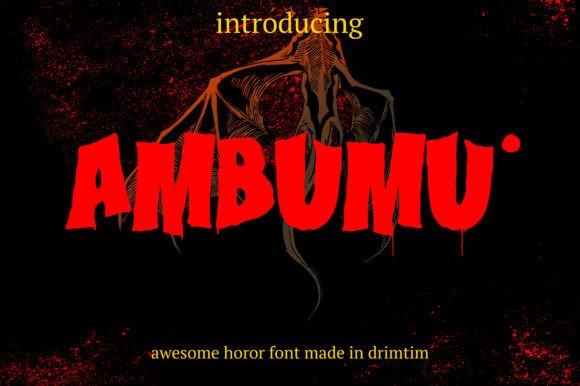
The Spooky-Chic Allure of Ambumu Font: A Designer’s Delight
I still remember the night I was working on a Halloween-themed project for a client, and I was on a mission to find the perfect font to give it that extra spooky kick. I had tried a few options, but nothing seemed quite right – until I stumbled upon Ambumu Font. Its bold, intricate letterforms immediately caught my eye, and I knew I had found the one. In this article, I’ll share my experience with Ambumu Font, its features, and how to make the most of it in your designs.
Ambumu Font: A Spooky-Modern Masterpiece
Ambumu Font is a cool, spooky display font that masterfully merges traditional gothic style with a modern edge. Its bold, intricate letterforms make it perfect for striking posters, unique branding, and edgy editorial designs. Whether you’re a designer, crafter, or creative hobbyist, Ambumu Font is sure to add a touch of darkness and sophistication to your projects.
• ✨ Unique and eye-catching design: Ambumu Font’s blend of traditional gothic and modern elements makes it stand out from the crowd.
• ✅ Highly versatile: This font can be used for a wide range of projects, from posters and branding to editorial designs and more.
• 💡 Inspirational possibilities: Ambumu Font’s intricate letterforms and bold design will surely spark your creativity and inspire new ideas.
⚠️ While Ambumu Font is a stunning addition to any project, it’s worth noting that its intricate design may not be suitable for very small font sizes or body text. It’s best used for headlines, titles, or short paragraphs.
🤔 Additionally, some users may find that the font’s bold design can be overwhelming if not paired with a complementary font or design elements.
The Designer Inspiration Behind Ambumu Font
Ambumu Font was inspired by the dark, mysterious world of gothic architecture and the bold, modern designs of contemporary art. Its creator sought to blend the traditional with the modern, resulting in a font that’s both haunting and beautiful.
Q: What type of projects is Ambumu Font best suited for?
A: Ambumu Font is perfect for striking posters, unique branding, and edgy editorial designs.
Q: Is Ambumu Font available in different weights or styles?
A: Currently, Ambumu Font is available in a single weight. However, its bold design and OpenType features provide ample opportunities for creative experimentation.
Q: Can I use Ambumu Font for body text or small font sizes?
A: While Ambumu Font is stunning, it’s best used for headlines, titles, or short paragraphs. Its intricate design may not be suitable for very small font sizes or body text.